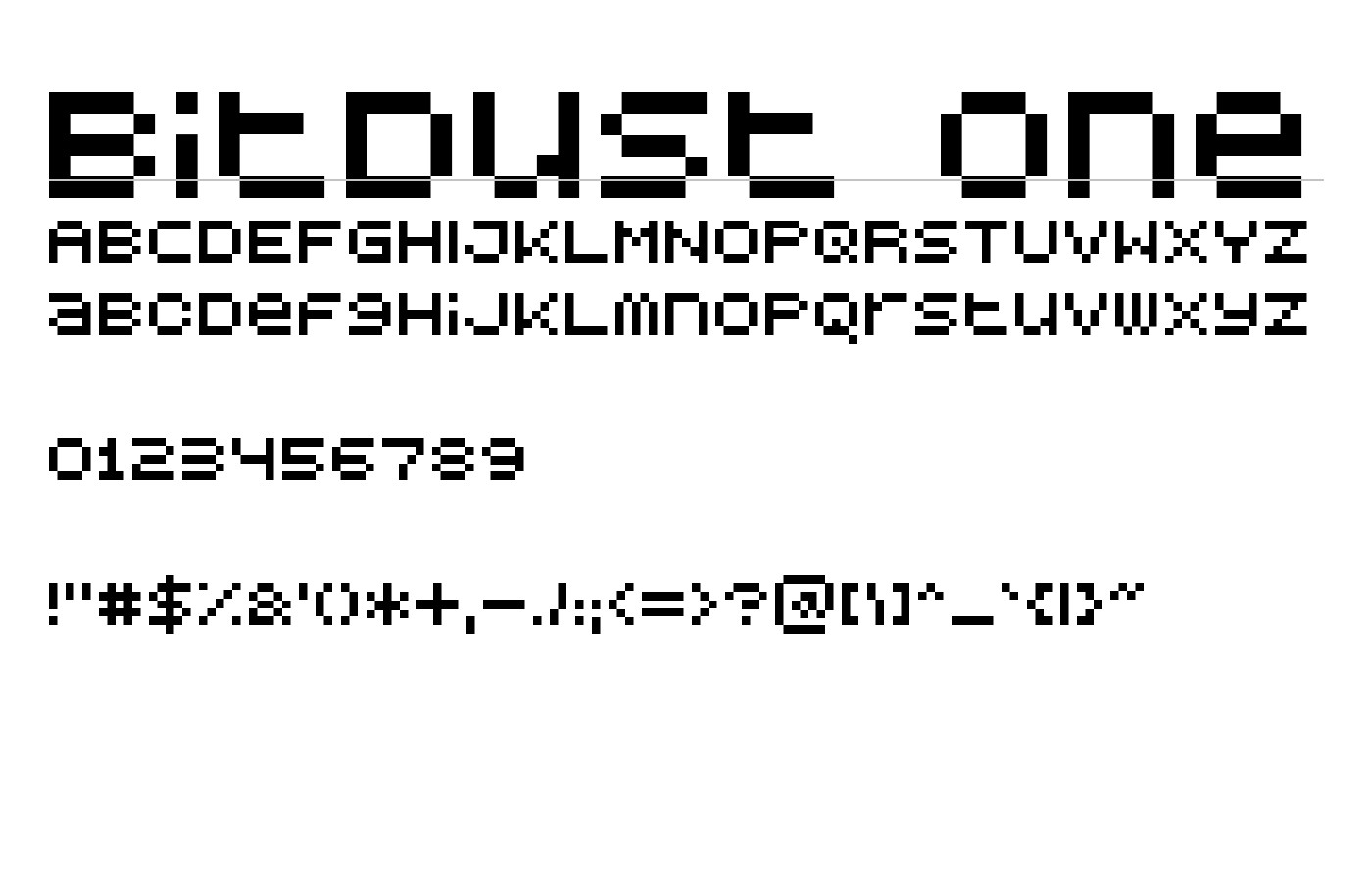
BitDust One is a pixelated, monospaced sans serif typeface with a blocky, digital aesthetic that evokes early computer screens and retro video games. Its uniform stroke weight and geometric shapes give it a clean, technical feel, making it perfect for tech-focused designs, gaming interfaces, and digital branding where a nostalgic yet modern vibe is desired. This font stands out in headlines and logos that need a unique, pixel-art inspired style that’s both playful and precise.
BitDust One Font
About BitDust One Font